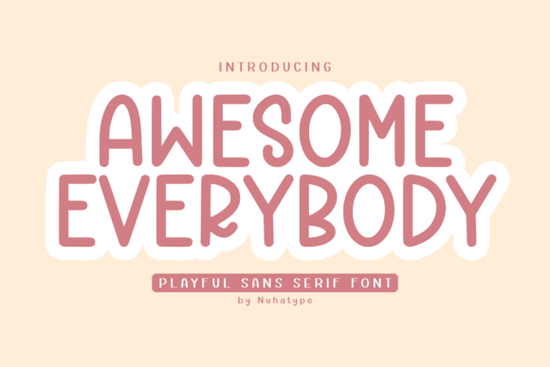
If you're looking for a friendly, bold typeface that works well for kids’ learning materials, local event posters, or cheerful social media graphics, the Awesome Everybody Font fits naturally into those projects. It’s not overly decorative or rigid just warm, legible, and quietly confident. Designed with soft curves and open letterforms, it avoids feeling childish while still inviting attention. That balance makes it especially useful for small businesses and educators who want clarity without coldness.
When does Awesome Everybody Font work best?
This font shines where approachability matters more than formality. Think: a neighborhood library’s summer reading sign, a printable worksheet for early readers, or the header on a handmade soap brand’s Instagram post. Its generous spacing and rounded terminals help readability at smaller sizes especially important if you’re designing for print-on-demand items like tote bags or greeting cards where ink spread can blur fine details.
It’s also a solid pairing option. Try layering Awesome Everybody Font as a headline over a clean sans-serif body font, or contrast it gently with something more structured like Old Vintage Victorian III Font for a “playful meets classic” vibe in a boutique bakery’s seasonal menu.
How does it compare to similar display fonts?
Unlike ultra-bold stacked fonts (e.g., Stacked Chunky Font), Awesome Everybody keeps its weight distributed evenly no heavy bottoms or exaggerated tops that can feel overwhelming in longer text blocks. And while it shares warmth with Selina Daniel Duo Font, it’s simpler in construction, making it easier to scale down for labels or app icons without losing character.
It’s less nostalgic than Remember Things Font, which leans into handwritten charm. Awesome Everybody feels intentional not scribbled, not overly polished just human-scaled and easy to read. That makes it reliable across formats: digital banners, vinyl decals, embroidery digitizing (when used at appropriate sizes), and even chalkboard-style signage.
Real use cases from crafters and small teams
- A homeschool parent used it for weekly spelling worksheets kids said the letters “looked happy,” and teachers noticed improved engagement during group reading.
- A community garden co-op printed large-format signs with this font for their “Seed Swap Day.” Volunteers reported fewer questions about where to go because the signage felt intuitive, not intimidating.
- A candle maker paired it with hand-drawn line art and used it across Instagram Stories, product tags, and thank-you cards keeping visual tone consistent without needing multiple fonts.
One thing to keep in mind: because it’s a display font, avoid using it for long paragraphs or dense legal text. Stick to headlines, short callouts, labels, or single-line quotes. For body copy, pair it with something neutral like Inter, Lato, or even system fonts (Helvetica, Georgia) depending on your medium.
If you'd like to see how it renders across different backgrounds and sizes before committing, Creative Fabrica offers a live preview tool. You can also check out the official Awesome Everybody Font page for user-uploaded mockups and licensing details especially helpful if you’re planning commercial use across physical products or digital templates.
Before downloading, ask yourself:
- Do I need a friendly, bold font for short-form, high-visibility text?
- Will this be used mostly in print, digital, or both?
- Am I okay with a single-weight option or do I need light/bold/italic variants?
- Does my project benefit from soft, rounded shapes rather than sharp angles or vintage flourishes?
If most answers are “yes,” Awesome Everybody Font is likely a practical, low-friction choice not a flashy upgrade, but a steady, dependable tool in your design kit.